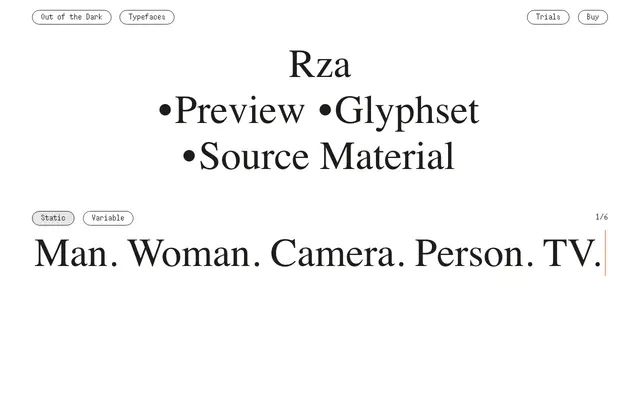
A six-weight grotesque sans from Swiss foundry Out of the Dark, available in both static and variable formats.
Rza offers six weights from Light to Black in a clean, upright grotesque form, with a variable font option alongside the static styles. The foundry's catalogue leans heavily into experimental and display-oriented work, and Rza sits at the more restrained end of that range. With no italics or condensed cuts, it reads as a focused single-axis grotesque built for clarity and typographic economy.
The specimen and weight range suggest a contemporary grotesque sans-serif with a variable axis; no italics or condensed variants are listed, pointing to a single-width upright grotesque family.